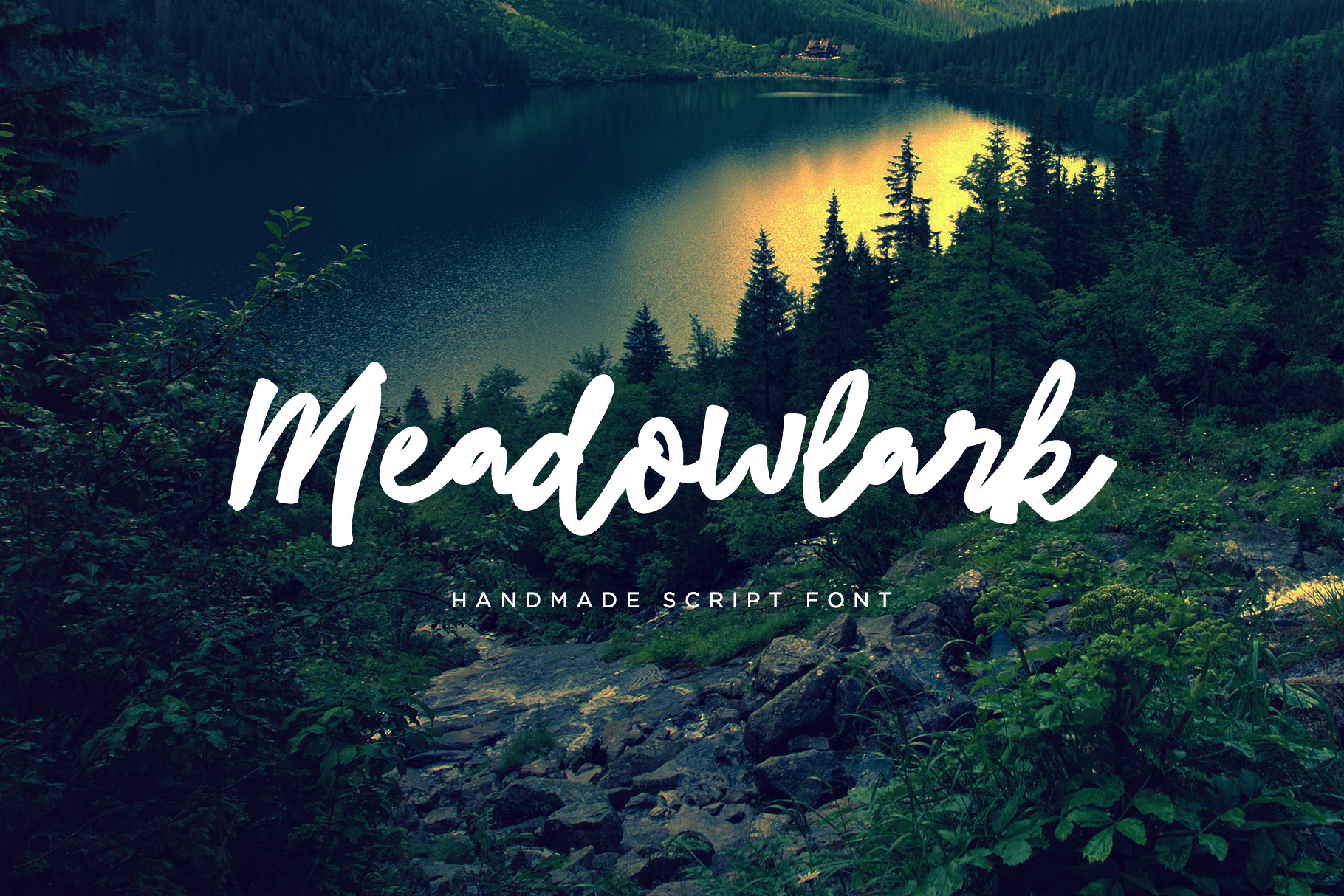
Meadowlark Script Font
Meadowlark is a hand made, handwriting script font that will give your designs a casual yet classy, personalized and airy feel.